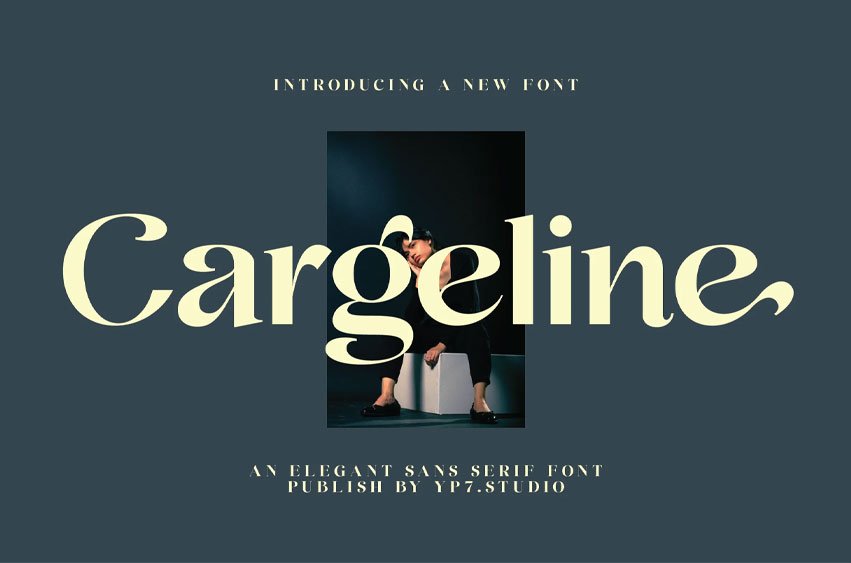
Cargeline Font is crafted with high attention to detail, it gives you the best design experience.
Most suitable for poster design, headlines, quote writing, pamphlets, greeting cards, product packaging, book covers, logotypes, album covers, etc.
Elegant Font – Cargeline